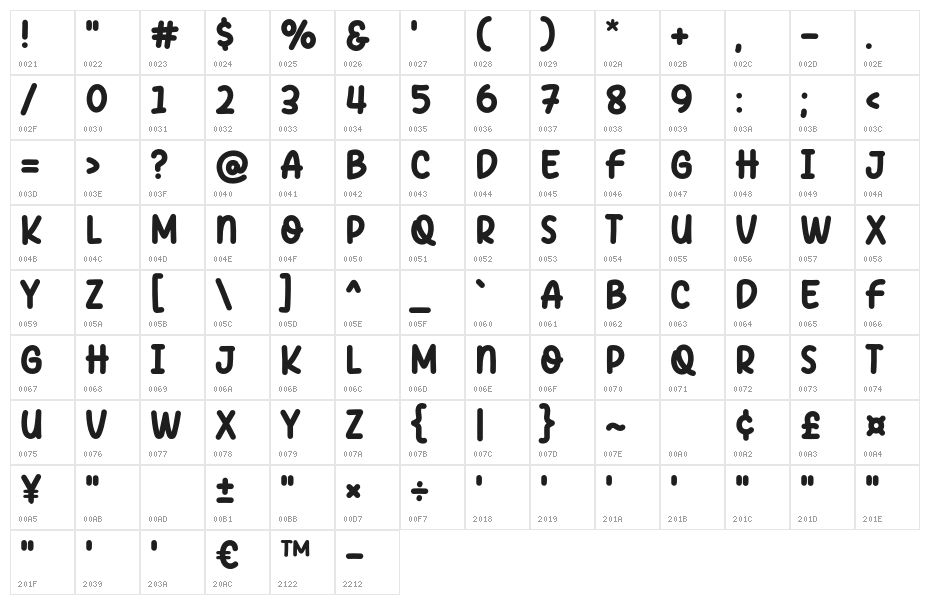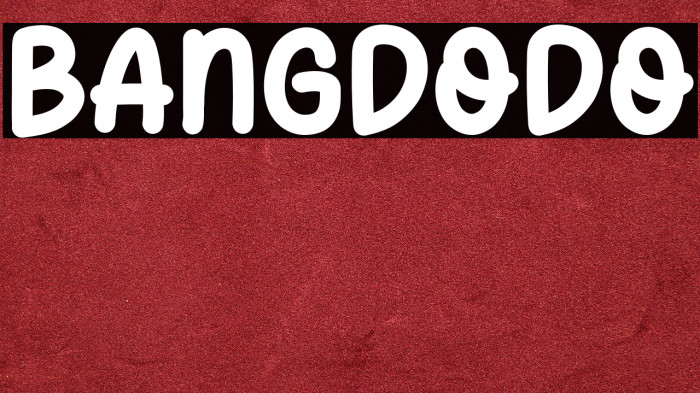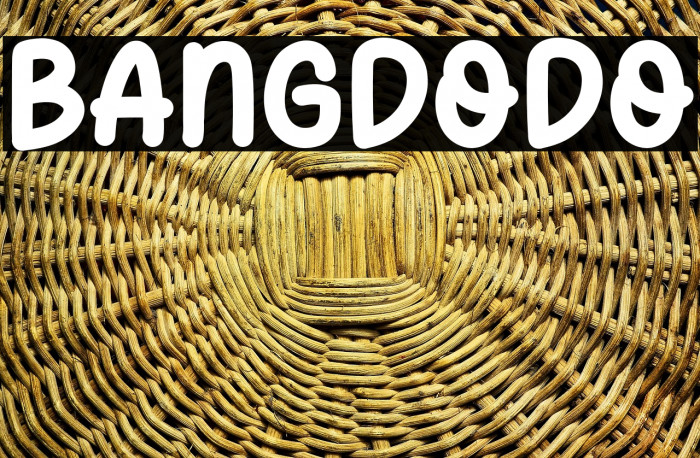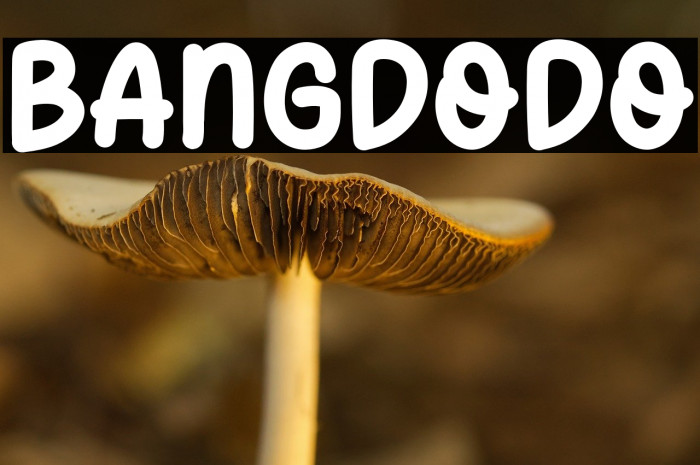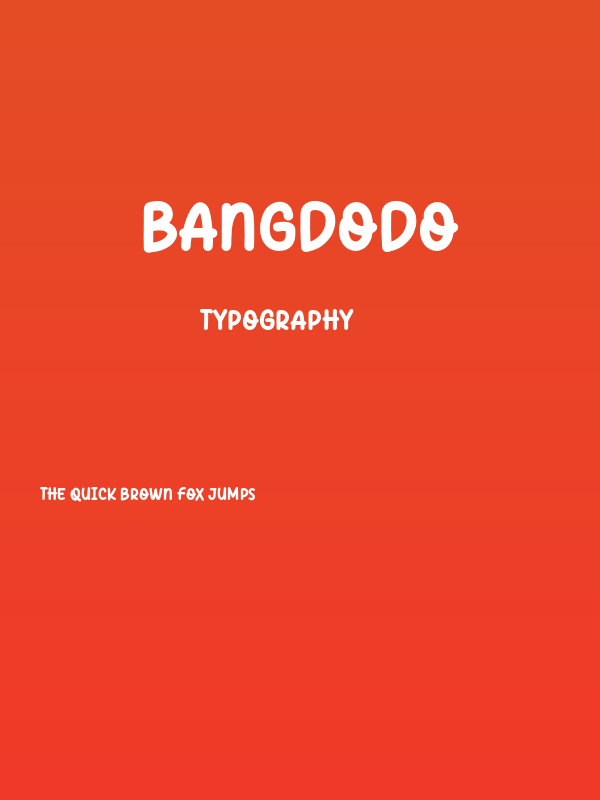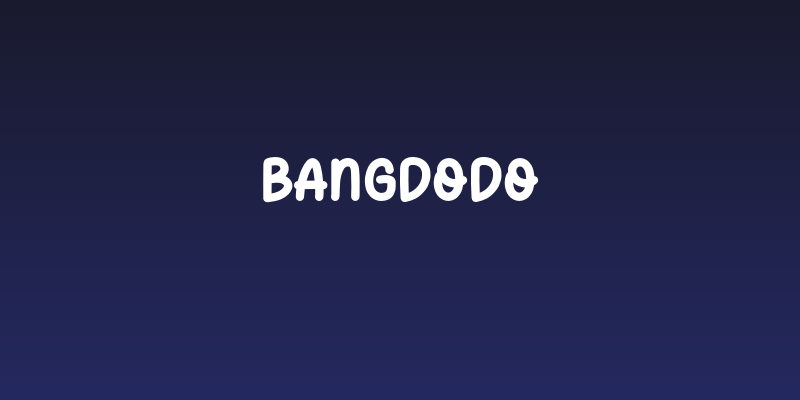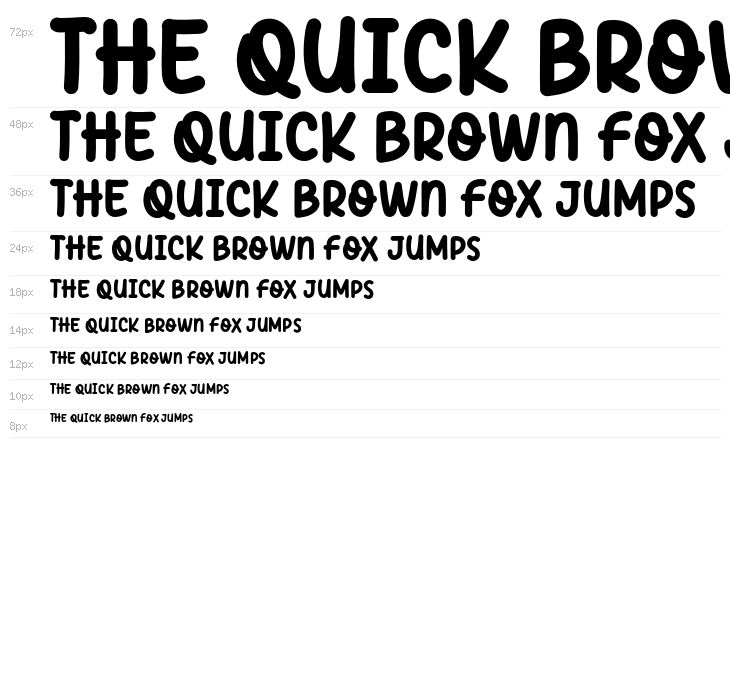
Bangdodo Font
Bangdodo Description
This playful and bold font features rounded, thick strokes that give it a friendly and approachable appearance. The characters are slightly irregular, adding a hand-drawn feel that enhances its casual and informal style. The uppercase and lowercase letters maintain consistent thickness, contributing to a cohesive look. The numbers and special characters follow the same design principles, ensuring uniformity across all glyphs. Its boldness makes it highly legible, even at smaller sizes, while the rounded edges soften its overall impact, making it suitable for a variety of creative applications.
| Overall Style | Playful |
| Proposed Projects | Ideal for children's books, playful branding, casual invitations, and social media graphics. |